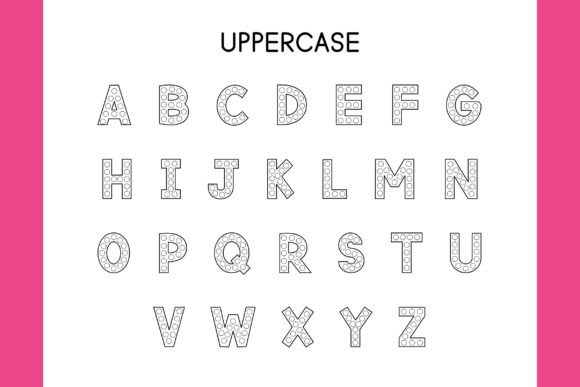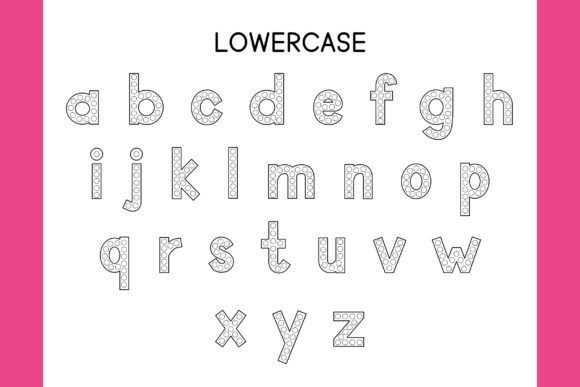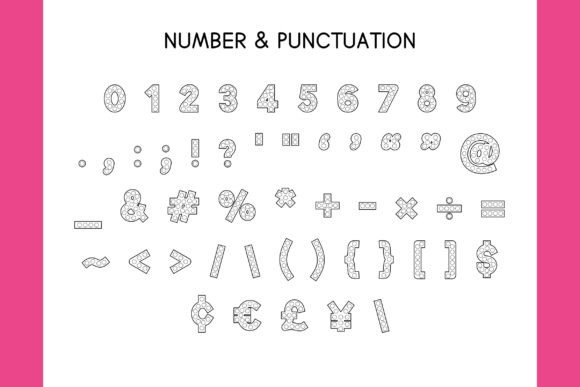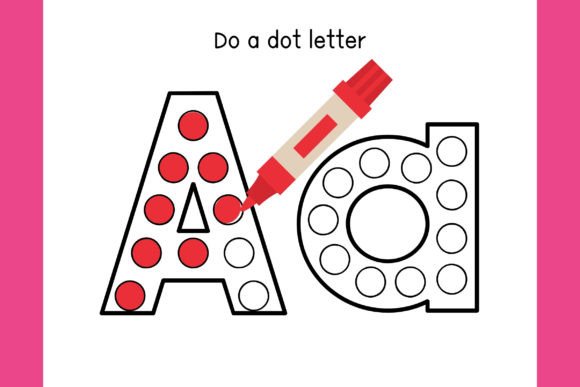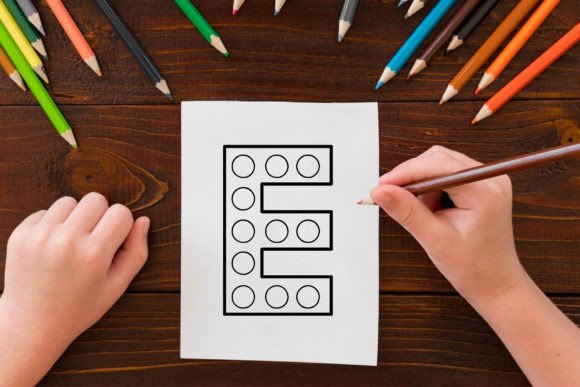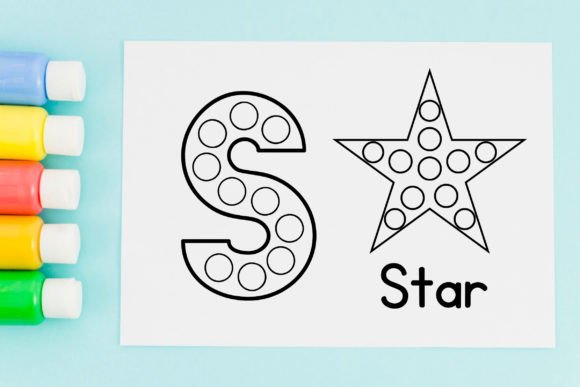
Unlocking Learning Possibilities with the Do-a-dot Alphabet Font
The Do-a-dot Alphabet font is a game-changer for educators and caregivers seeking to create engaging and interactive learning experiences for young learners. This versatile tool is designed with creativity and flexibility in mind, allowing users to craft custom worksheets tailored to their specific teaching objectives. By combining learning with fun, ‘Do-a-dot Alphabet’ activities facilitate language and letter comprehension while also refining fine motor skills.
The Benefits of Do-a-dot Alphabet Font
The Do-a-dot Alphabet font offers a range of benefits for young learners, including:
- Improved language and letter comprehension: By using the Do-a-dot Alphabet font, children can develop a deeper understanding of the alphabet, letter recognition, and phonetic awareness.
- Enhanced fine motor skills: The dot-to-dot activities facilitated by this font help children refine their fine motor skills, hand-eye coordination, and dexterity.
- Increased sensory awareness: The interactive nature of Do-a-dot Alphabet activities engages young learners’ senses, promoting a more immersive learning experience.
- Boosted concentration levels: By making learning fun and interactive, the Do-a-dot Alphabet font helps children stay focused and motivated.
Applications in Educational Settings
The Do-a-dot Alphabet font is perfect for a range of educational settings, including:
- Kindergarten: Introduce young learners to the world of alphabet and language with engaging and interactive worksheets.
- Homeschooling: Create customized learning materials that cater to your child’s unique needs and learning style.
- Special Education: Adapt the font to suit the needs of children with special needs, providing a fun and inclusive learning experience.
Design and Crafting Possibilities
The Do-a-dot Alphabet font offers endless possibilities for designers and crafters. With this font, you can:
- Create custom worksheets: Design unique worksheets that align with your teaching objectives, making learning fun and engaging.
- Develop interactive activity sheets: Craft activity sheets that combine learning with fun, such as dot-to-dot games, mazes, and more.
- Make printable art: Use the Do-a-dot Alphabet font to create stunning printable art, perfect for decorating classrooms or homes.
Tips for Using the Do-a-dot Alphabet Font
To get the most out of the Do-a-dot Alphabet font, consider the following tips:
- Experiment with different font sizes and styles: Adapt the font to suit your specific needs, from large font sizes for young learners to smaller sizes for more complex activities.
- Combine with other educational resources: Integrate the Do-a-dot Alphabet font with other educational resources, such as worksheets, activity sheets, and educational games.
- Get creative with colors and textures: Add visual interest to your worksheets and activity sheets by incorporating different colors and textures.
The Do-a-dot Alphabet font is a versatile tool that offers limitless learning possibilities for young learners. By combining learning with fun, this font facilitates language and letter comprehension, fine motor skills, and sensory awareness. Perfect for educators, caregivers, designers, and crafters, the Do-a-dot Alphabet font is an essential resource for creating engaging and interactive learning experiences.